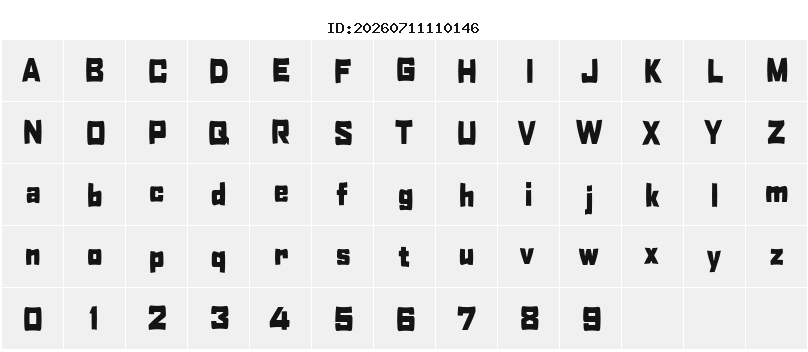
H0bby of night Preview
• Font Name: H0bby of night
• Full Font Name: H0bbyofnight
• Designer: deFharo
About H0bby of night.ttf
H0bby of night.ttf is a modern, elegant sans-serif font designed for ultimate readability and visual harmony. Perfect for branding, headlines, web design, and print materials.